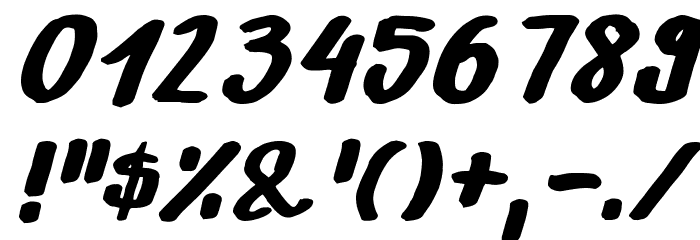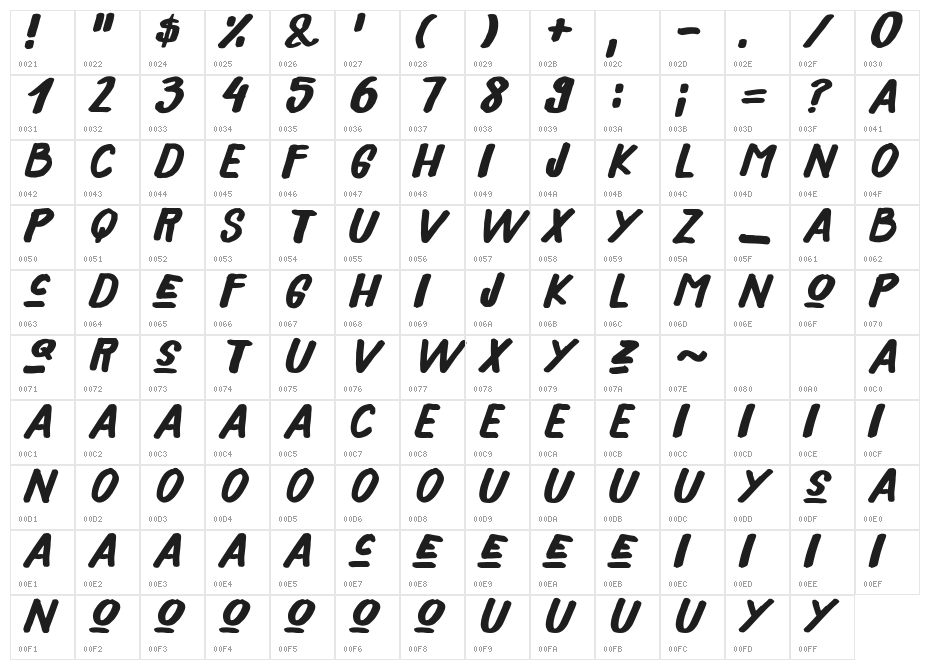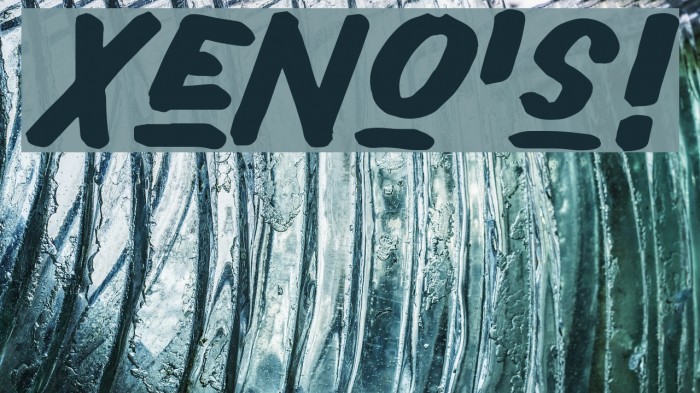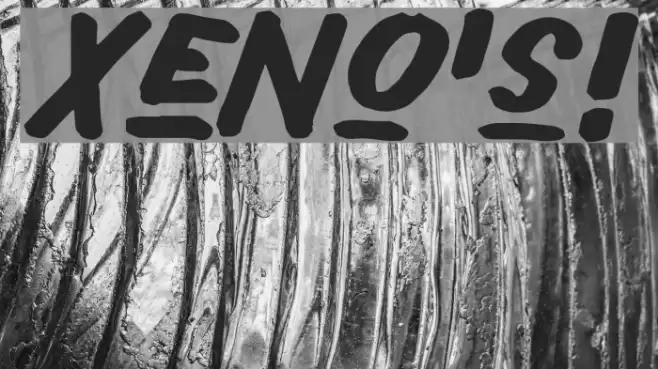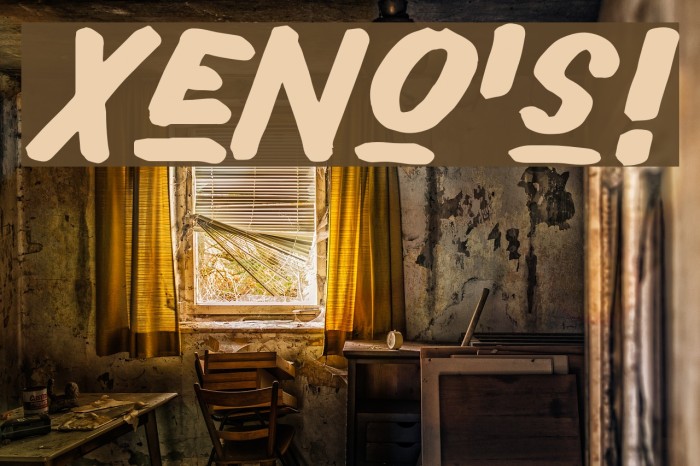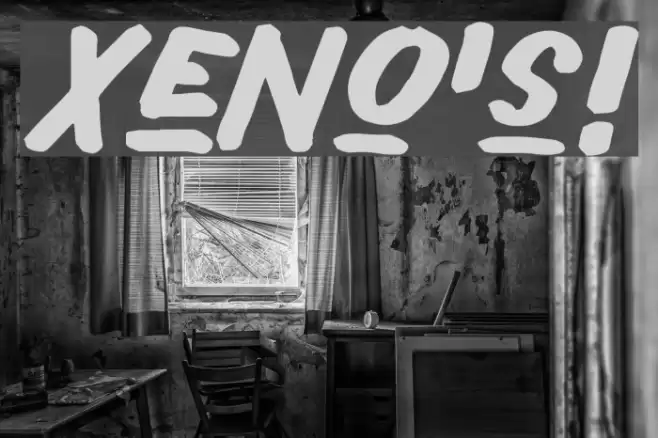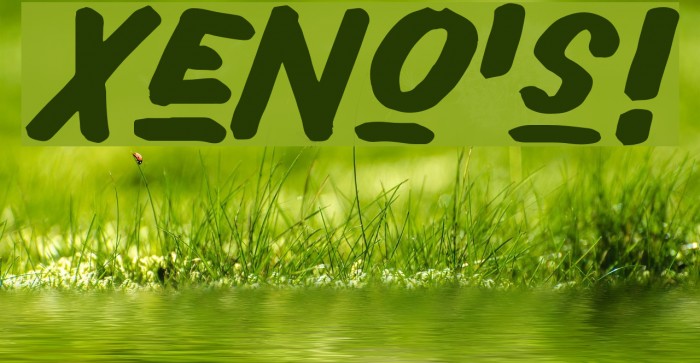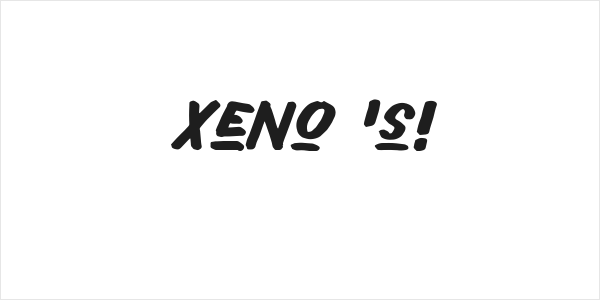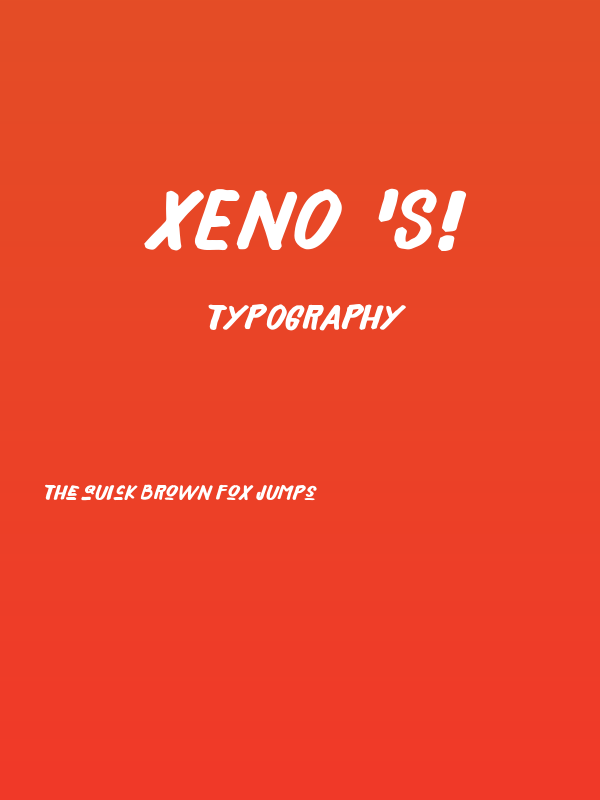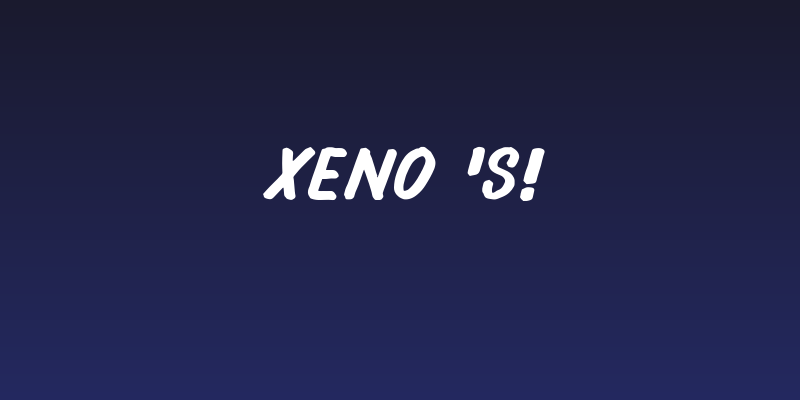
Xeno's! Font
Xeno's! Description
This font features a bold and dynamic style with a strong emphasis on rounded edges and a playful, energetic appearance. The uppercase letters are bold and slightly slanted, giving a sense of movement and fluidity. The lowercase letters maintain this energetic style, with a consistent stroke width that adds to the overall boldness. Numbers are equally bold, with a unique flair that makes them stand out. The special characters are designed to match the playful and bold aesthetic, making them ideal for attention-grabbing designs.
| Proposed Projects | Ideal for branding projects, poster designs, and any creative work that requires a bold and energetic typeface. |